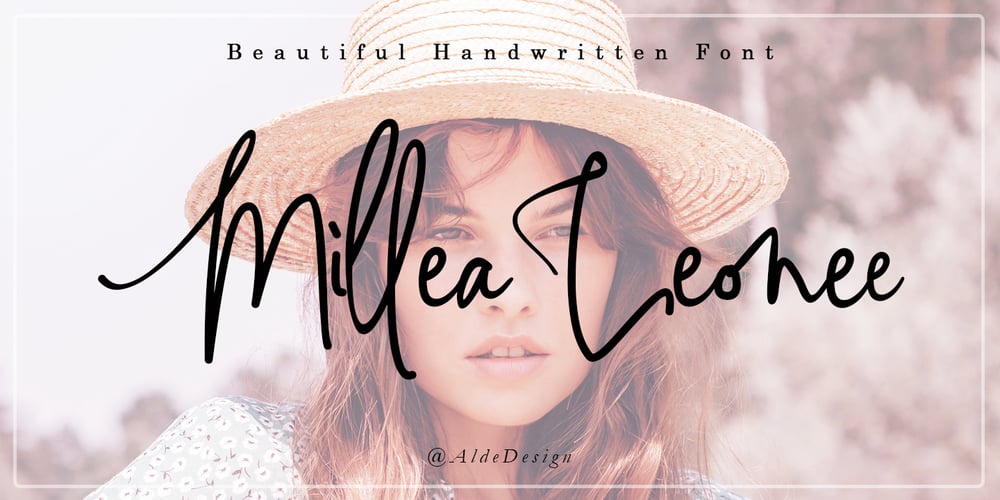
Millea Leonee
Millea Leonee font
Millea Leonee Font Family was designed by Alde Saputro and published by Aldedesign. Millea Leonee contains 4 styles and family package options. The Millea Leonee is a fashionable and quirky new handwriting font with some sexy and stylish extras. It was created to look as close to a natural handwritten script as possible by including lots of ligatures, and a full set of lowercase alternates.Millea Leonee is a stylish script font that features a varying baseline, smooth line, modern, and with a depth love. For those of you who need a touch of love and modernity for your designs or branding, it can be used for various purposes such as headings, wedding, invitation, signature, logos, branding, t-shirt, letterhead, signage, labels, news, posters, badges, and more. We designed this font with OpenType features to give an artistic touch on it.Millea Leonee includes:-Stylish modern handwritten script-Special Ligatures-Multilingual Support